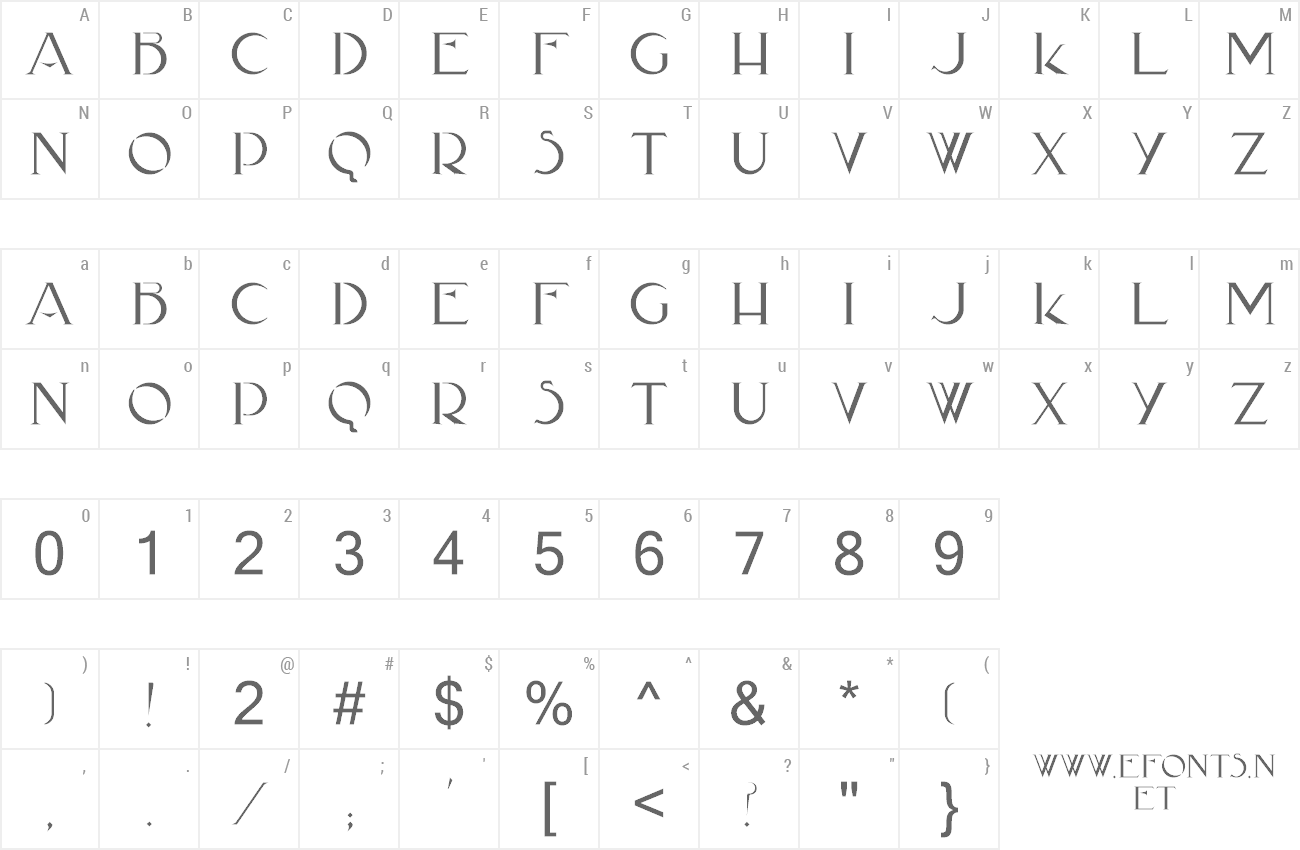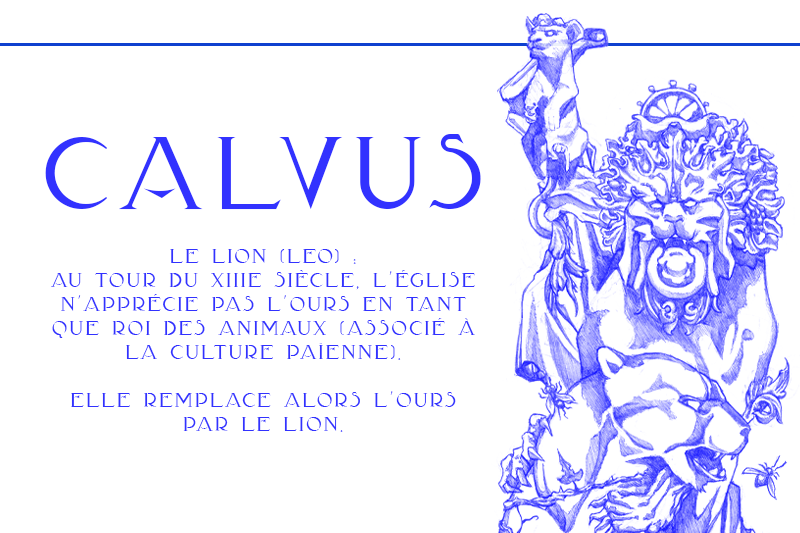
Calvus is inspired by the inscriptions found in the architecture of Chaumont. Its name comes from �calvus mont� � the bald mountain. The typeface blends ancient letterforms with Art Deco proportions, all shaped in a stencil style. This font is completely free for both personal and commercial use. Contact: contact.yann.prelat@gmail.com Instagram: @yannou_prl |